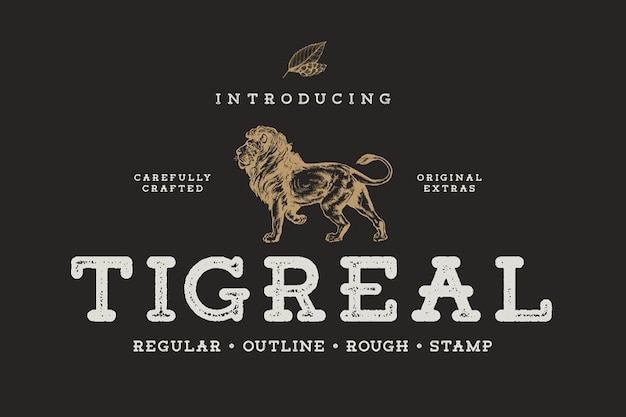
Tigreal Font
Tigreal font takes you on a rustic adventure with its stamp-like, rough-hewn appeal. Each character bears the marks of authenticity, creating a textured, rounded aesthetic that's perfect for adding a touch of wilderness to your designs. Whether you're crafting labels, posters, or outdoor-themed projects, Tigreal's rugged charm will lead the way. It's your go-to choice for a rustic, adventurous vibe that's as untamed as the great outdoors itself.